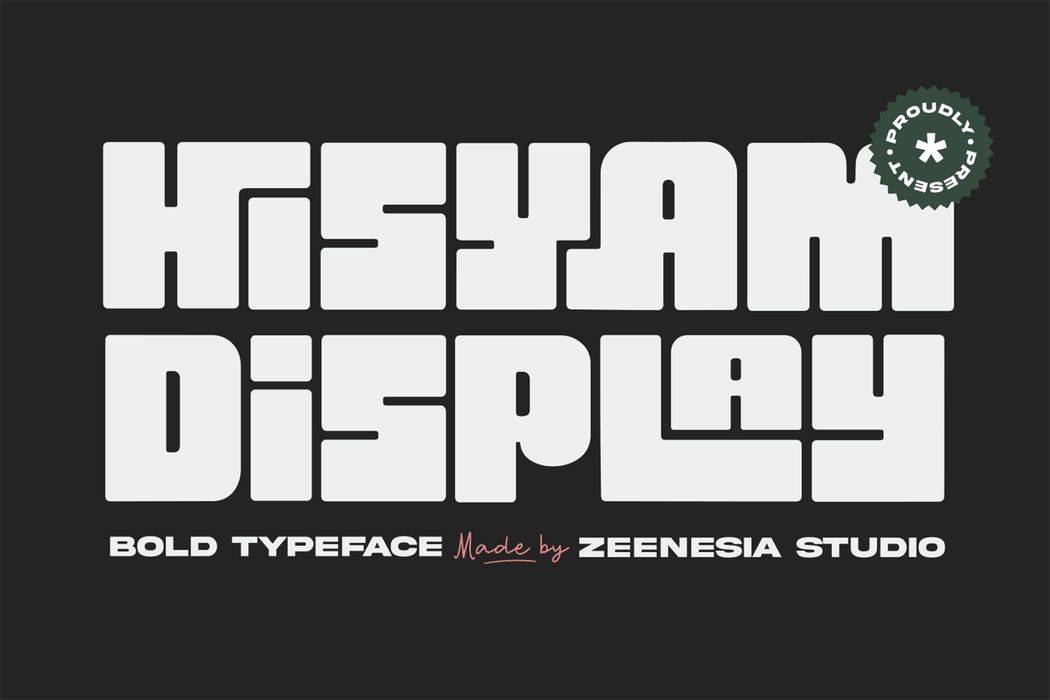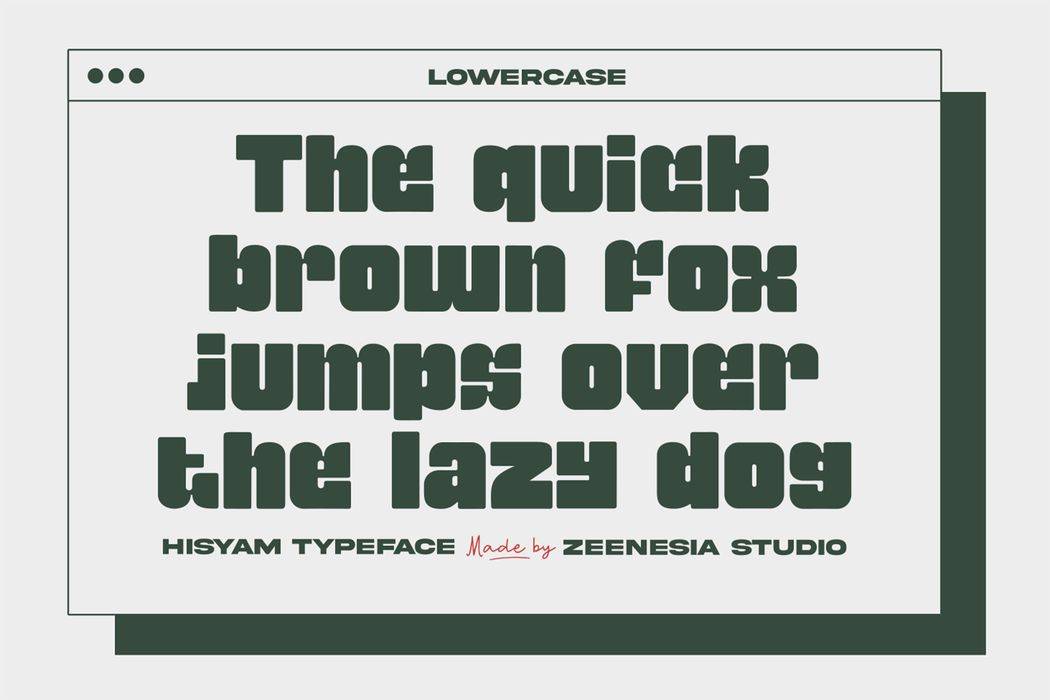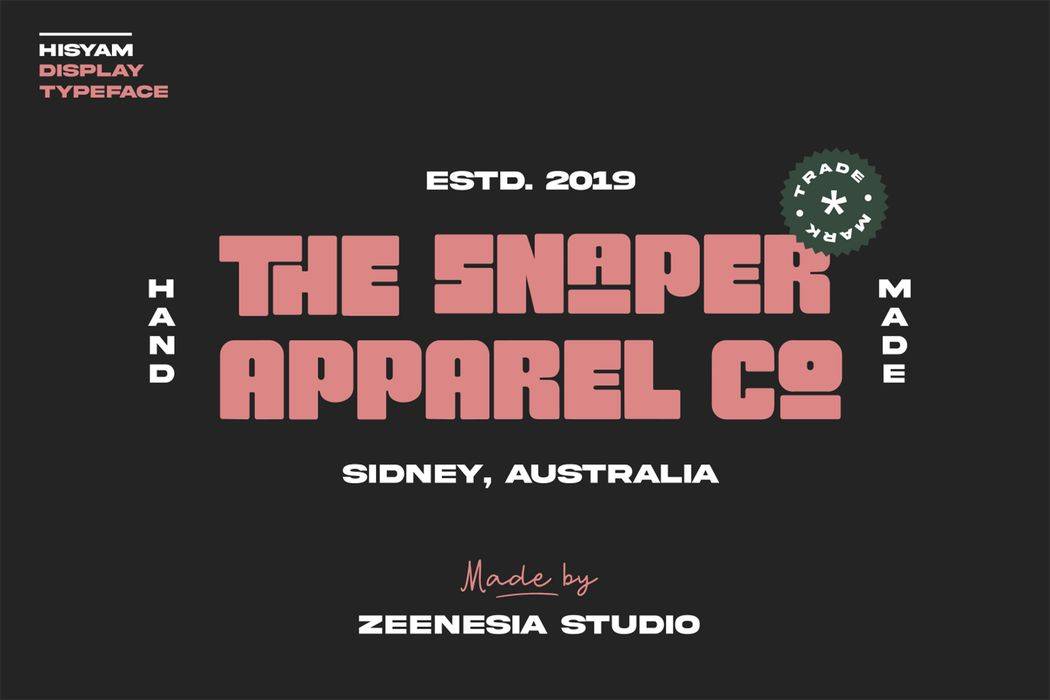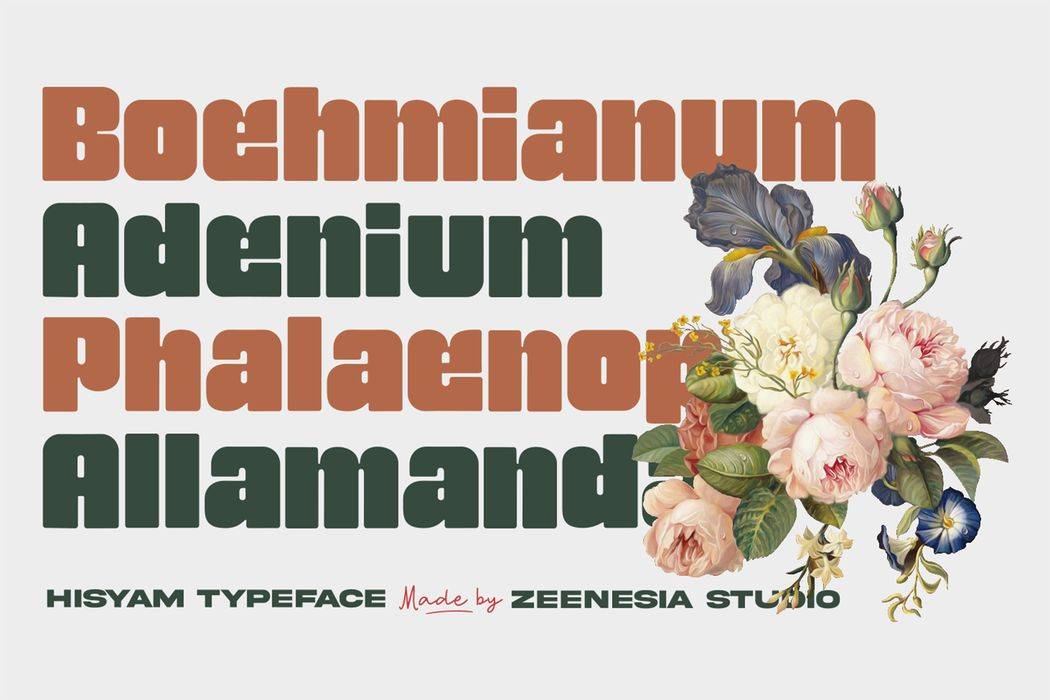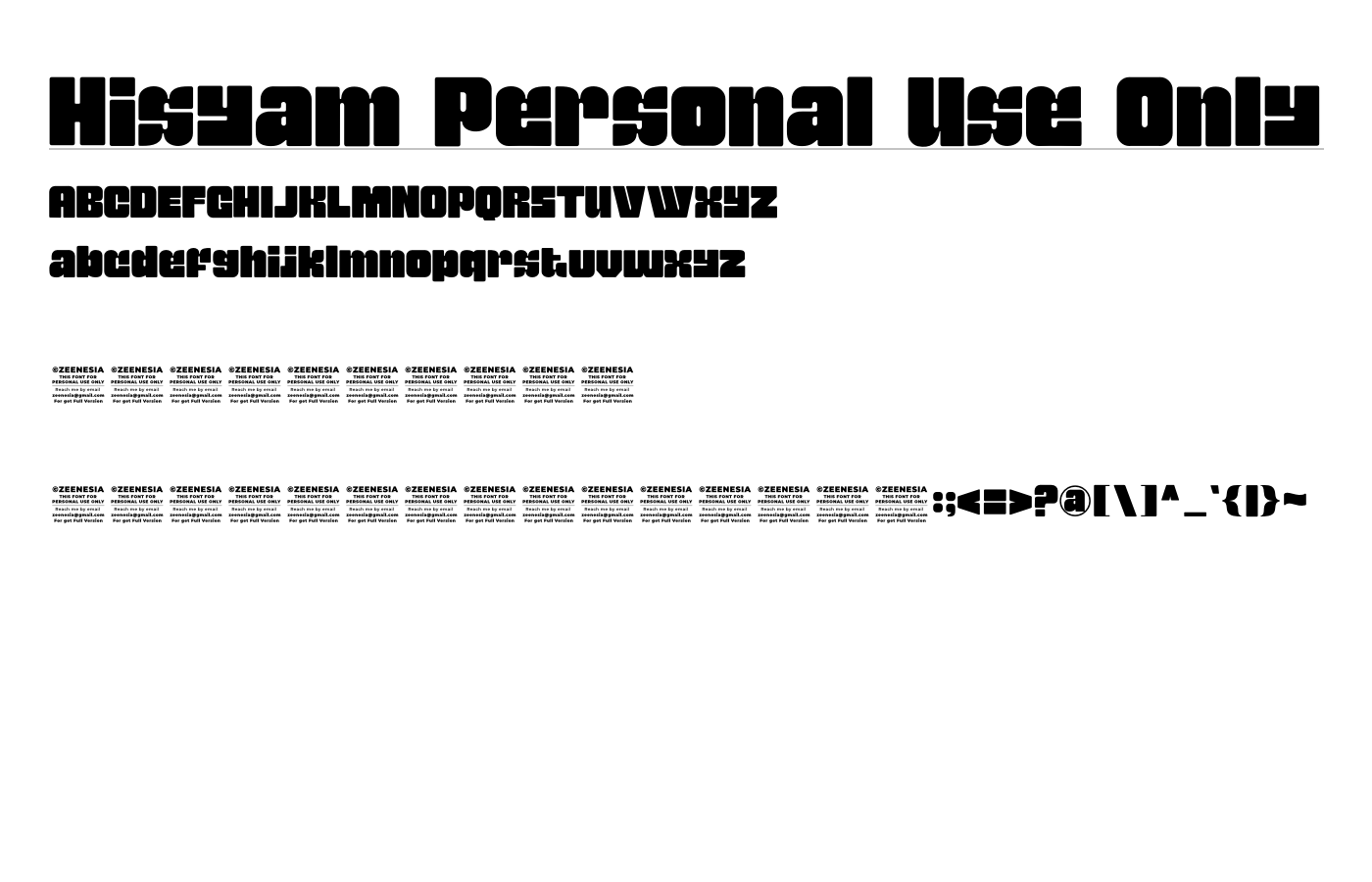
The Hisyam font is a bold, heavy-weight sans serif typeface with a strong, blocky presence and rounded edges that give it a playful yet sturdy feel. Its condensed width and low contrast strokes make it ideal for eye-catching headlines or display use where impact is key. This font works well for creative branding, posters, and modern designs seeking a unique and approachable aesthetic.
Hisyam Font
About Hisyam Font